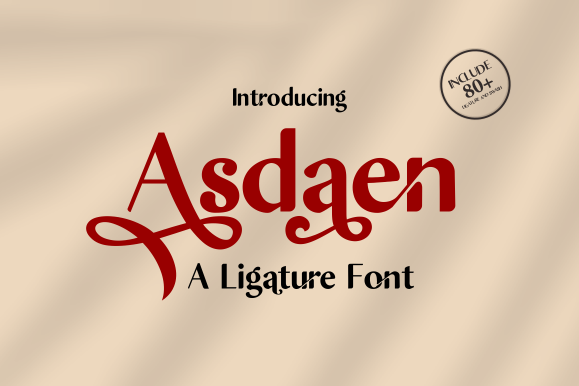
Asdaen Font: A Symphony of Elegance and Uniqueness
Immerse yourself in the captivating embrace of Asdaen Font, a typographical masterpiece that exudes elegance and individuality in every stroke. Inspired by classic serif fonts, Asdaen rises above the ordinary with its meticulous artistry and intricate details, effortlessly transforming your creative projects into captivating visual masterpieces.
Experience the Harmony of Ligature in Asdaen
Asdaen's defining feature lies in its masterful use of ligature, a technique that seamlessly connects letters, creating an uninterrupted flow of characters. This exquisite technique adds a touch of sophistication and charm to your designs, whether you're crafting logos, branding elements, or eye-catching headlines.
Awaken Your Inner Artist with Asdaen's Creative Touch
With Asdaen Font as your creative partner, unleash the boundless potential of your imagination. Its versatility knows no bounds, effortlessly adapting to various design styles and genres. Whether you're a seasoned graphic designer pursuing perfection or a passionate hobbyist seeking to elevate your creations, Asdaen empowers you to weave magic into every project.
Asdaen Font: The Key to Unforgettable Designs
From the intricate swirls of its serifs to the graceful curves of its letterforms, Asdaen Font possesses an undeniable allure that captivates audiences. Its ability to evoke emotions and create lasting impressions makes it the ideal choice for projects that demand attention and leave a lasting impact.
Embrace the Allure of Asdaen Font Today
Asdaen Font is more than just a collection of characters; it's an invitation to embark on a journey of creativity and self-expression. Its elegance and uniqueness will elevate your designs to new heights, transforming them into works of art that speak volumes without uttering a single word.